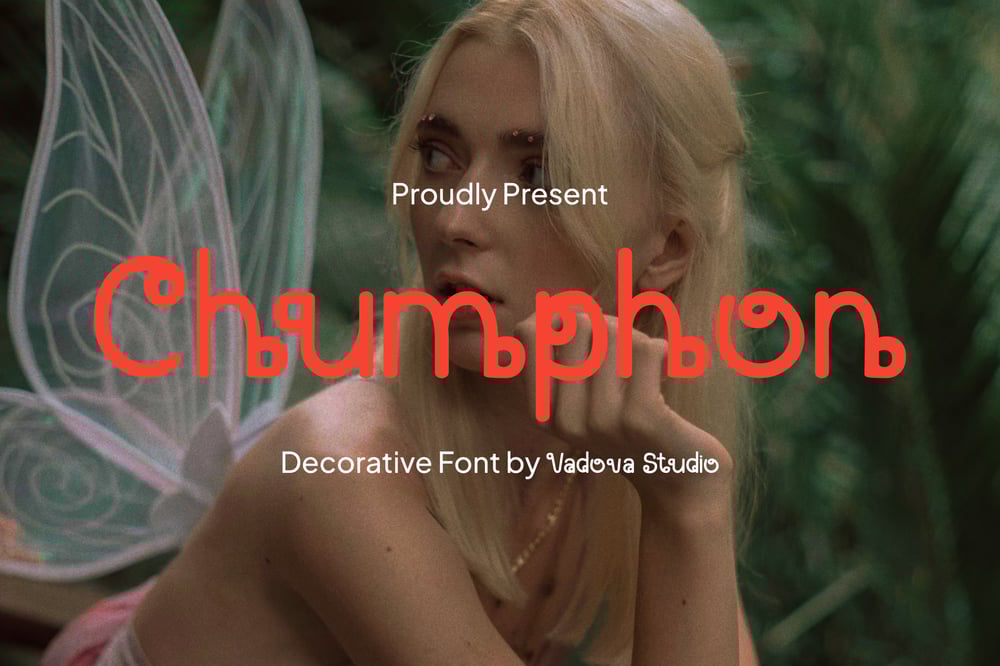
Chumphon Font Family was designed by published by Vadova Std. Chumphon contains 1 styles and family package options. Chumphon is a decorative font designed to bring a playful and charming touch to any design project. With its rounded, handcrafted style, this typeface is perfect for bakery branding, café menus, packaging, children’s books, and creative logos. Its warm and inviting letterforms create a friendly and whimsical aesthetic, making it ideal for businesses that want to convey a sense of joy and comfort. Whether used for headlines or product labels, Chumphon adds a delightful personality to any design.Main Features* Available in OpenType formats* Uppercase & Lowercase characters* Numeral & Punctuations